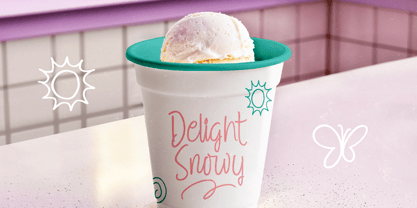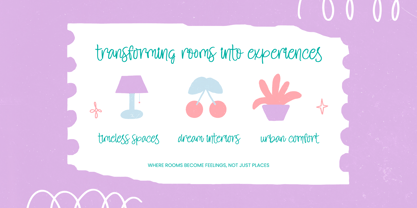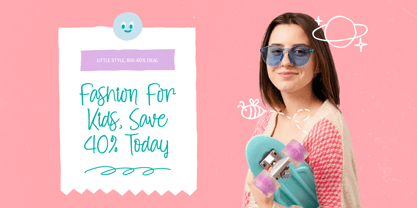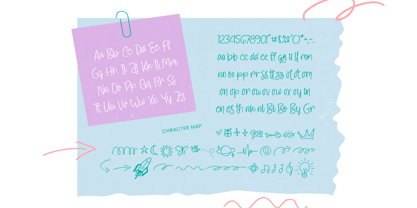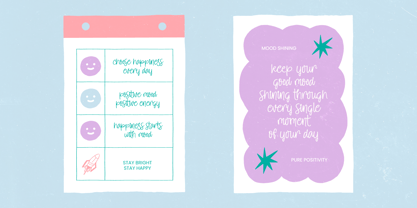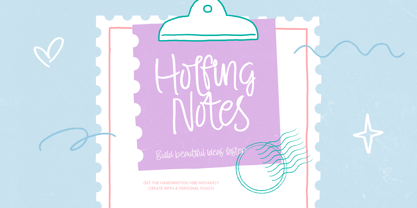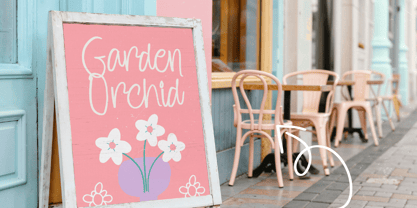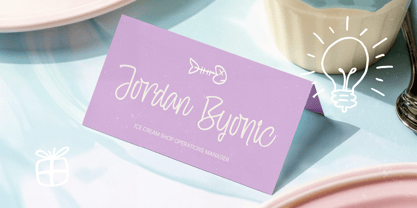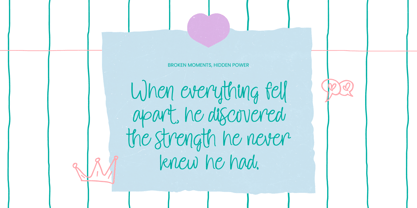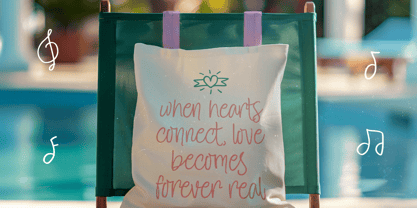
Holfing Notes
The Holfing Notes Font Family was designed by Heru Utama Putra and published by Stylishtype Studio. Holfing Notes contains 2 styles and family package options. More about this family
Elevate your creative projects with an authentic touch of personality and charm. Holfing Notes - Notes Handwritten is a masterfully crafted typeface that captures the essence of spontaneous, elegant handwriting. Its tall, slender letterforms and monoline stroke weight provide a clean yet whimsical aesthetic that feels both modern and deeply personal. Designed to bridge the gap between casual scribbles and professional design, Holfing Notes - Notes Handwritten offers a unique visual rhythm that adds a genuine human element to any digital canvas.